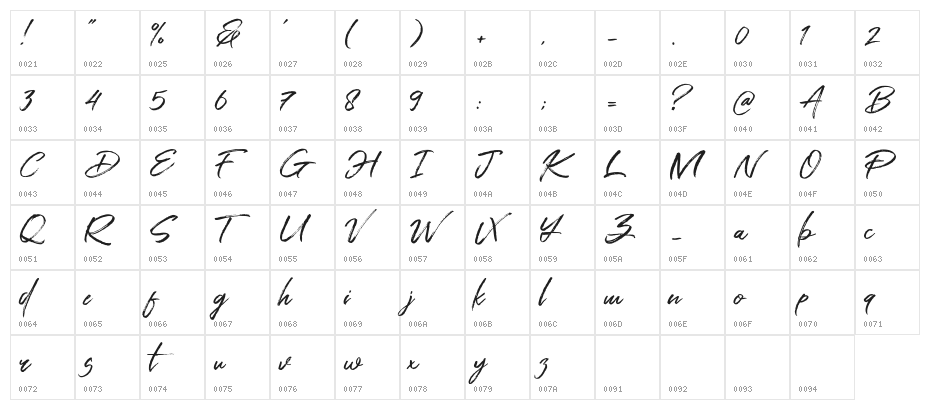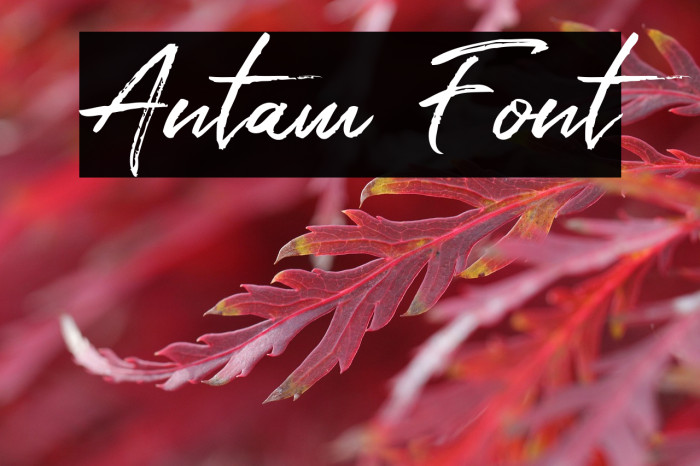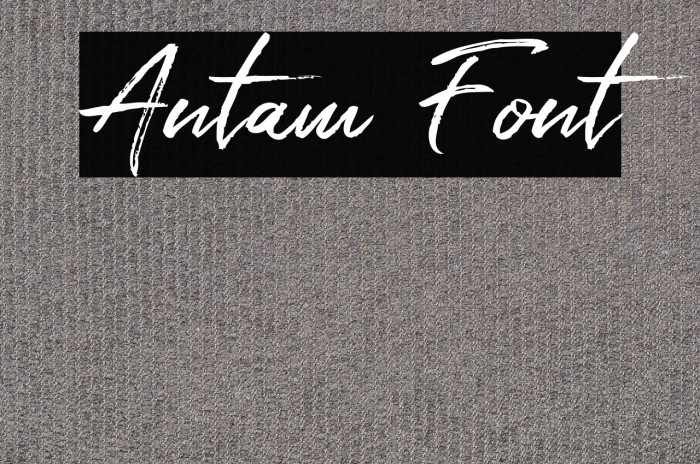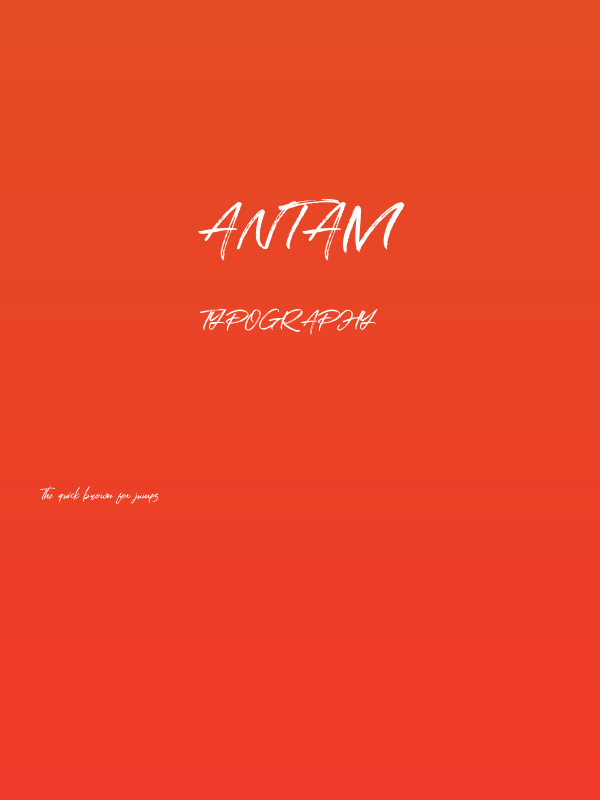
Antam Font
Antam Description
This font features a dynamic and expressive handwritten style, characterized by its fluid and cursive strokes. The letters are crafted with a natural flow, giving an impression of personal touch and creativity. The uppercase letters are bold and slightly slanted, while the lowercase letters maintain a consistent rhythm, enhancing readability. The numerals and special characters are designed to complement the overall aesthetic, with a playful yet sophisticated look. This font is ideal for projects that require a personal and artistic touch, such as invitations, branding, and creative designs.
| Use Case | Logos, Headlines, Artistic projects |
| Proposed Projects | Ideal for invitations, branding, artistic projects, and creative designs. |